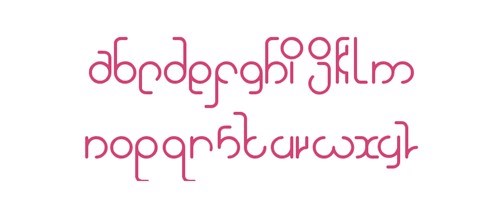
Unicorn Creatives is happy to present Love Letters Embrilliance Embroidery Font - Whimsical Decorative Style - BX font machine embroidery font which has Playful and decorative machine embroidery font showcasing curvy lines in a cheerful pink shade, perfect for casual projects on bags or apparel. Available in BX font and Embrilliance formats. included. If you would like to view more embroidery fonts and alphabets please search our embroidery fonts page.
Love Letters Embrilliance Embroidery Font - Whimsical Decorative Style - BX font